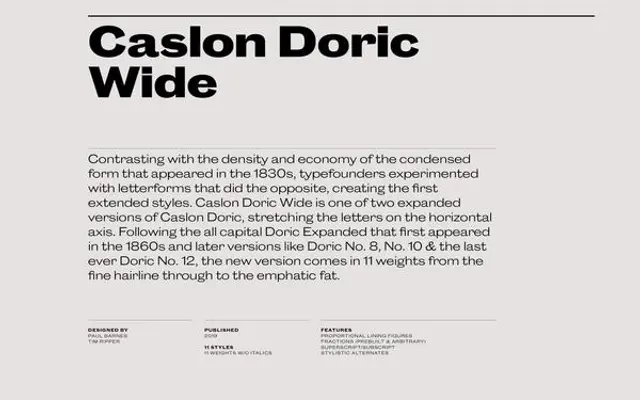
Caslon Doric
Commercial Type · Paul Barnes · 2018
A nineteenth-century British grotesque system spanning narrow to wide and text to display, drawn by Paul Barnes as part of the wider Caslon programme.
A nineteenth-century sans drawn by Paul Barnes that traces the British grotesque tradition from the pioneering faces of Caslon and Figgins in the 1810s and 1820s through to the lowercase, multi-size families that emerged later in the century. Caslon Doric synthesises that line of work into a system spanning narrow to wide and text to display, with Wide, Extended, Condensed Round and Condensed Text widths plus Outline so editorial and identity systems can flex across mastheads, body text, signage and packaging.
Commercial Type frame Caslon Doric as a synthesis of nineteenth-century British sans serif innovations, building on the pioneering faces of Caslon and Figgins and the later embrace of lowercase forms for use at multiple sizes.